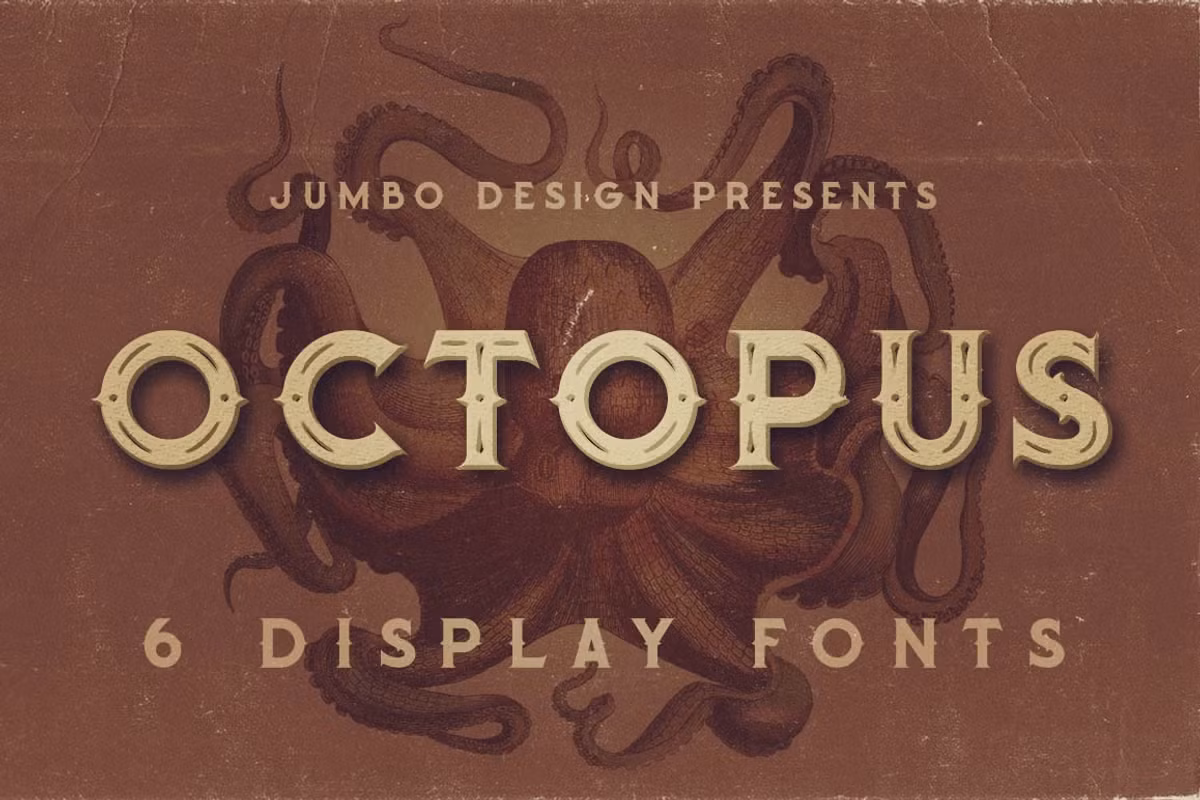
Octopus - Vintage Style Font Free Download
Octopus Font Free Download is a vintage-style typeface designed to evoke the bold, hand-drawn lettering of mid-20th century advertisements and signage. With its intricate details, strong curves, and artistic flair, Octopus is perfect for branding, retro posters, t-shirt designs, and any project that requires a bold, nostalgic touch.
The font features unique letterforms that give it a distinctive, classic look while still feeling modern and fresh. It includes uppercase and lowercase letters, numerals, punctuation, and alternate characters, making it ideal for creating eye-catching typographic designs.
Whether you're designing a retro-inspired logo, an old-school sign, or a trendy piece of merchandise, Octopus Font Free Download adds a fun, vintage edge to your typography. Use it freely in personal projects or mockups, and be sure to purchase the appropriate license for commercial use. Add bold, artistic character to your designs with this vibrant, vintage-style font.